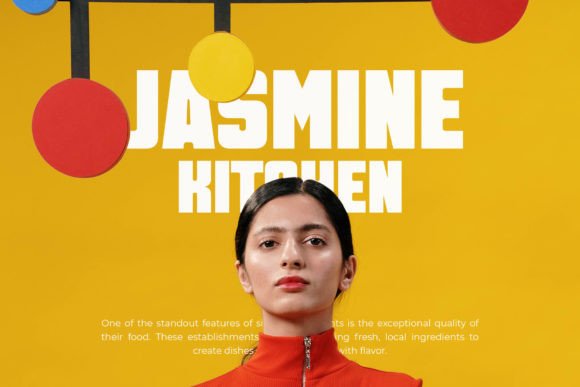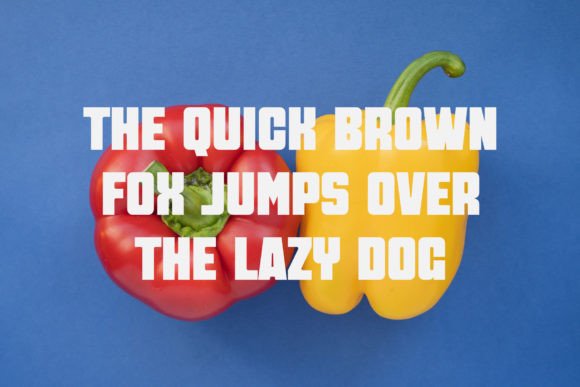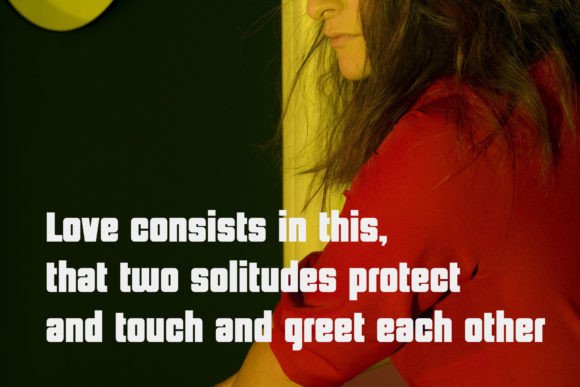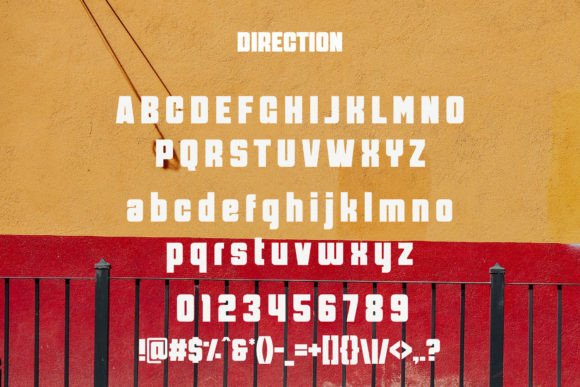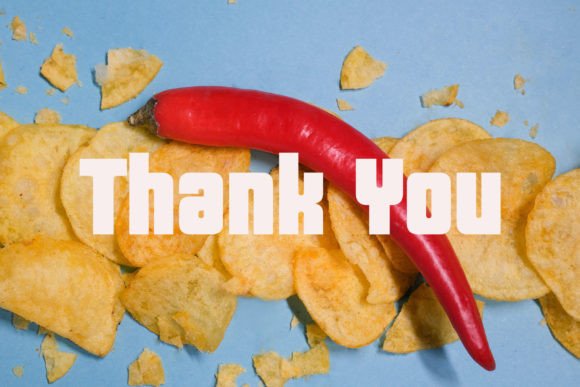
Introducing Direction Modern Display Sans: Elevate Your Designs with Elegance
In the world of typography, a font can make or break a design. It’s the foundation upon which the entire visual identity is built. For designers and crafters seeking a modern, sophisticated look, Direction Modern Display Sans is a game-changer. This sleek and simple font is perfect for adding a touch of class to any project, from headings and logos to branding, magazines, product packaging, and invitations.
The Essence of Direction Font
Direction Font is characterized by its clean lines and smooth curves, making it an ideal choice for display purposes. Its modern aesthetic is both versatile and elegant, allowing designers to create stunning visual content that captures the audience’s attention. Whether you’re working on a luxury brand’s logo or a fashion magazine’s cover, Direction Font brings a level of sophistication that’s hard to match.
Key Features of Direction Modern Display Sans
- Clean Lines and Smooth Curves: The font’s design is meticulously crafted to provide a seamless visual experience. The clean lines ensure clarity, while the smooth curves add a touch of elegance.
- Versatility: Direction Font is not limited to one specific use case. It’s perfect for headings, logos, branding, magazines, product packaging, and invitations, making it a valuable addition to any designer’s toolkit.
- Modern Aesthetic: With its contemporary design, Direction Font helps brands and designers stay ahead of the curve. Its modern look and feel are sure to make any project stand out.
- Ease of Use: Despite its high-end appearance, Direction Font is surprisingly easy to use. Designers can quickly integrate it into their projects, saving time without compromising on quality.
Applications of Direction Font
The versatility of Direction Font makes it suitable for a wide range of applications. Here are some of the most impactful ways to use this elegant font:
- Logos and Branding: Create a lasting impression with a logo that exudes professionalism and style. Direction Font’s modern look is perfect for tech startups, fashion brands, and any business aiming for a sleek image.
- Magazines and Editorial Content: Elevate your magazine covers, article headers, and editorial content with a font that demands attention. Direction Font’s readability and aesthetic appeal make it ideal for print and digital publications.
- Product Packaging: Make your product stand out on the shelves with packaging that looks premium. Direction Font can add a touch of luxury to your packaging design, enhancing the unboxing experience.
- Invitations and Events: Whether it’s a wedding invitation, a corporate event, or a product launch, Direction Font can add a level of sophistication that’s sure to impress your guests.
Tips for Using Direction Font Effectively
To get the most out of Direction Font, consider the following tips:
- Pair with Complementary Fonts: For body text, pair Direction Font with a more traditional sans-serif or serif font to create contrast and visual interest.
- Experiment with Sizes and Weights: Don’t be afraid to experiment with different sizes and weights of Direction Font to create a hierarchy of information and add depth to your design.
- Pay Attention to Spacing: Ensure that your text is easily readable by paying attention to letter spacing and line height.
Direction Modern Display Sans is more than just a font – it’s a design statement. Its clean lines, smooth curves, and modern aesthetic make it the perfect choice for designers and crafters looking to elevate their projects. With its versatility and ease of use, Direction Font is set to become a staple in the world of typography. Whether you’re creating a brand identity, designing a magazine, or crafting an invitation, Direction Font is your gateway to creating visually stunning and impactful designs.